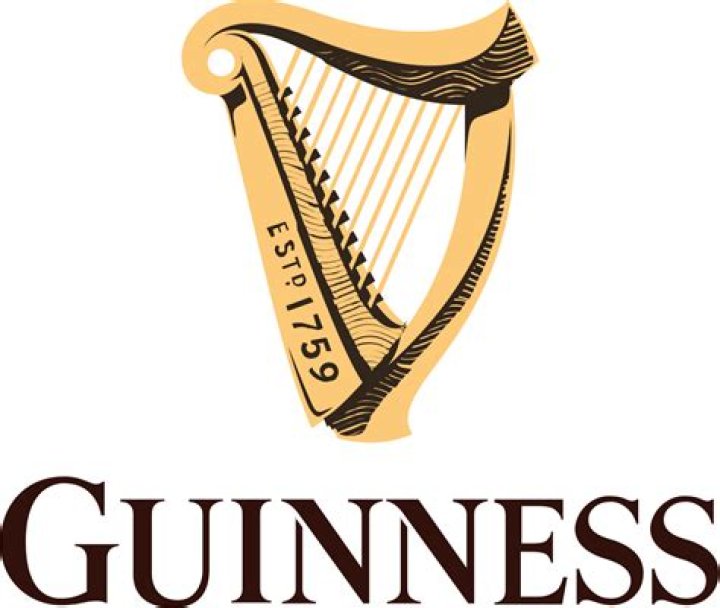
What font is Guinness logo?
What font does Guinness use? The closest font you can get for the Guinness logo is Agenda URW Light font. Free alternative fonts for Guinness logo: The closest free font you can get is Resavska BG Sans Bold Font.
Which traditional musical instrument was adopted as a logo by a well known Irish brewing company?
The harp, which serves as the Guinness emblem, is based on a famous 14th century Irish harp known as the “O’Neill” or “Brian Boru” harp which is now preserved in the Library of Trinity College Dublin.
Why is the Irish harp backwards?
Guinness put business before patriotism and wouldn’t yield on its trademark, so the government decided to simply show the harp the other way round, and that’s how it remains to this day.
Why did Guinness use a harp?
Since this musical instrument symbolized the unity among everyone of Ireland, they decided to use the symbol of the harp in spite of everything, but in reverse to the logo of the brewery. Subsequently, other Irish companies began to use other versions of this famous harp for their logo, including the airline Ryanair.
Why does the Guinness harp always face right?
As such, the Guinness Harp always appears with its straight edge (the soundboard) to the left, and the government harp is always shown with its straight edge to the right. It is because of the harp trademark that the Guinness company named its first lager Harp in 1960. Synonymous with the harp symbol.